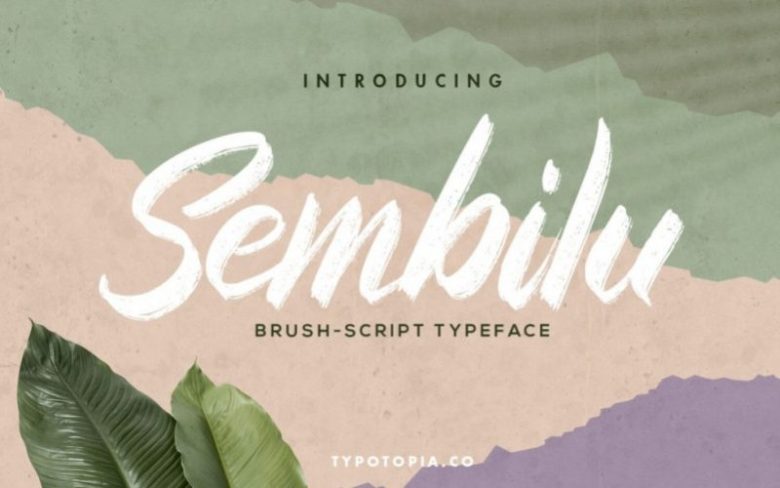
Sembilu Brush Font Free
A Brush-Script Typeface. This type of font perfectly made to be applied especially for logos, Poster, stationery, magazines, menus, books, invitations, greeting cards, packaging, labels, apparel, marketing, business cards, etc.